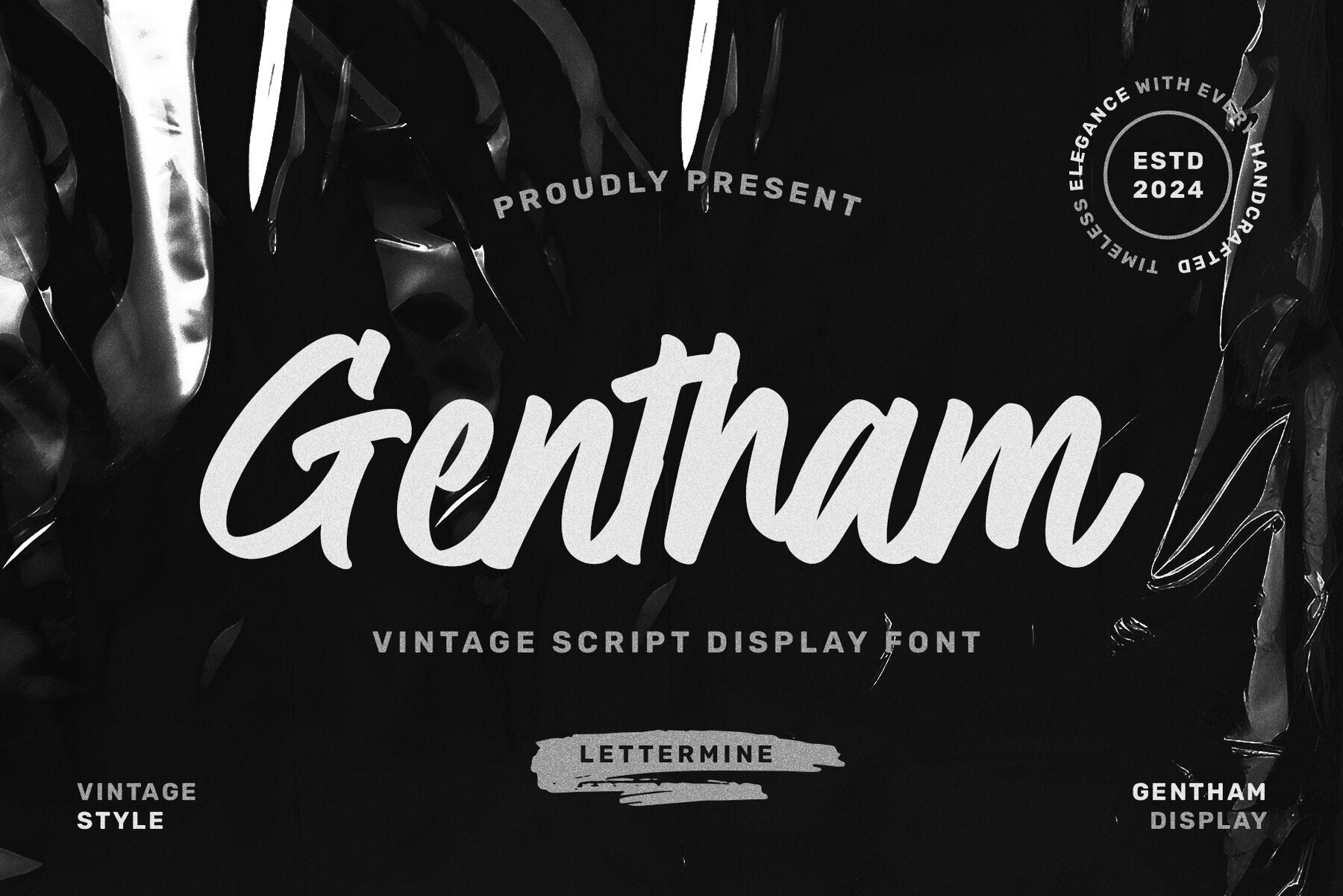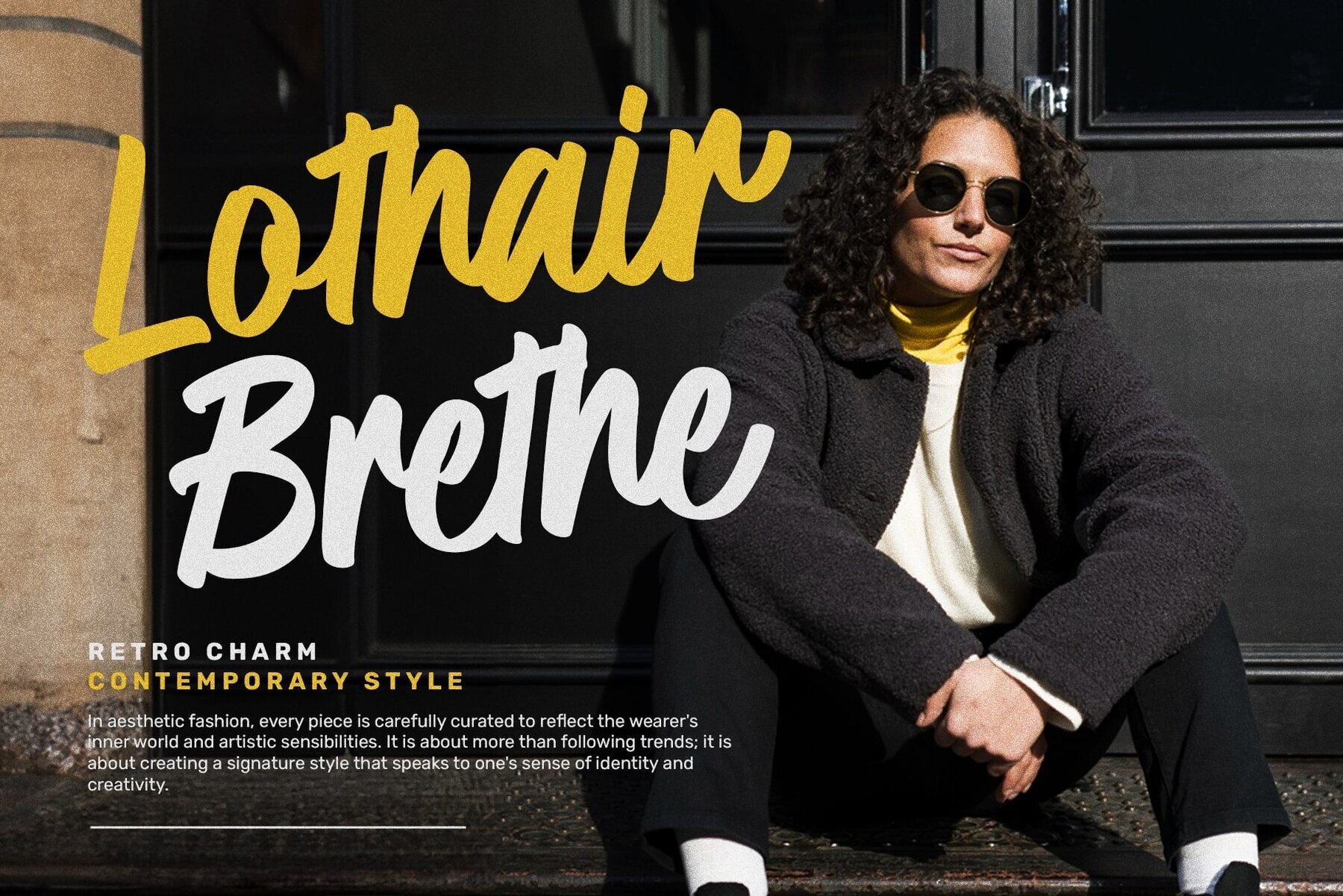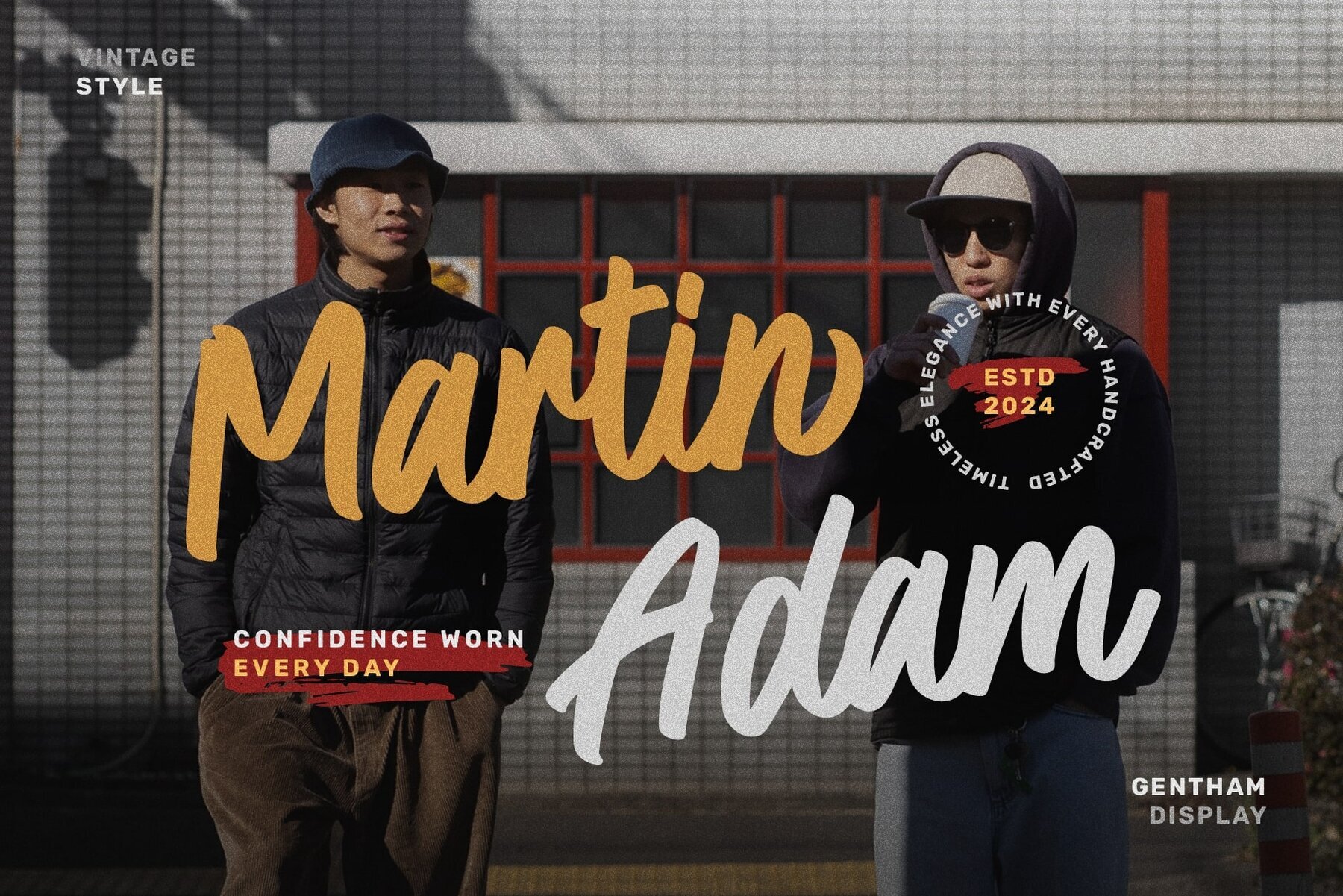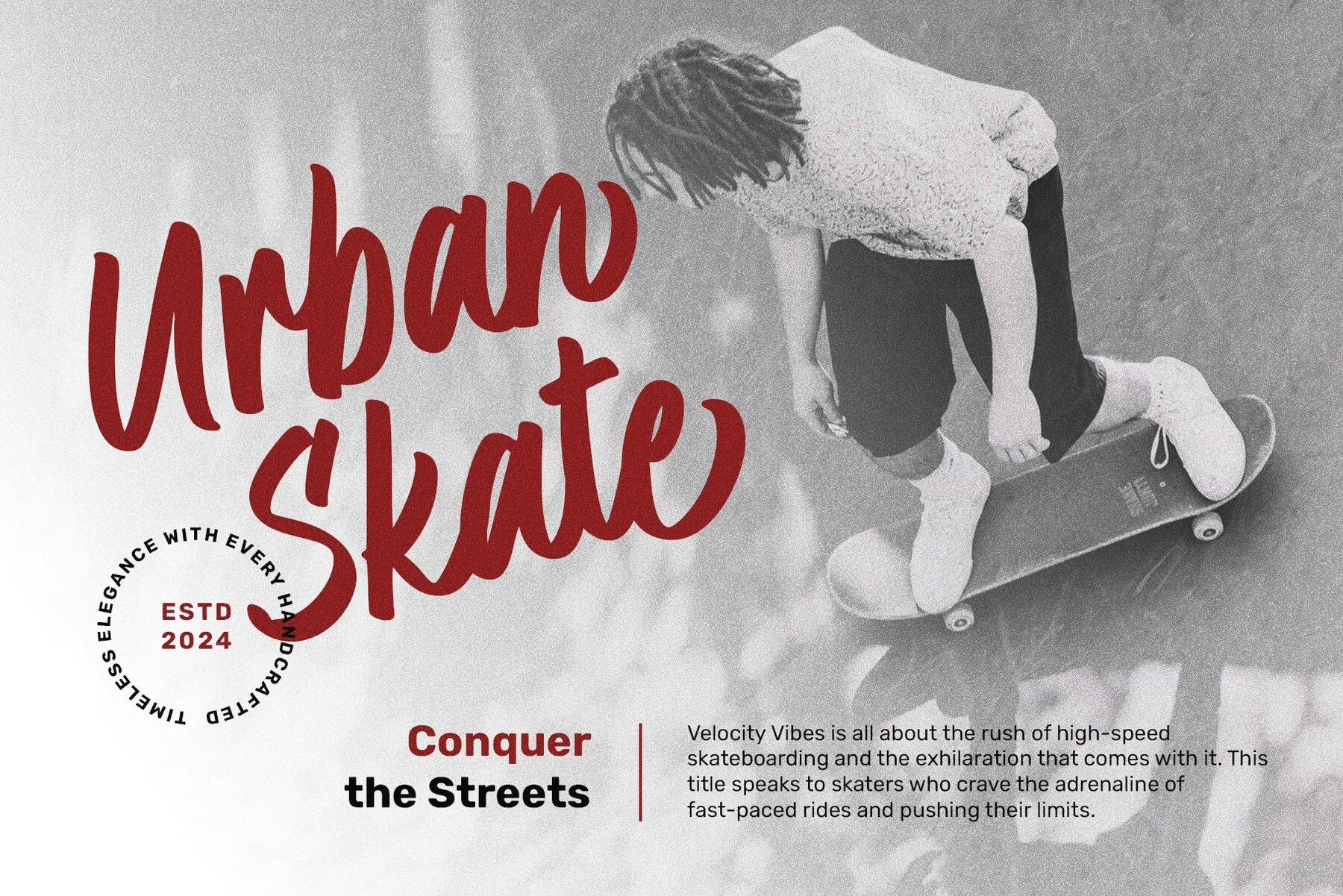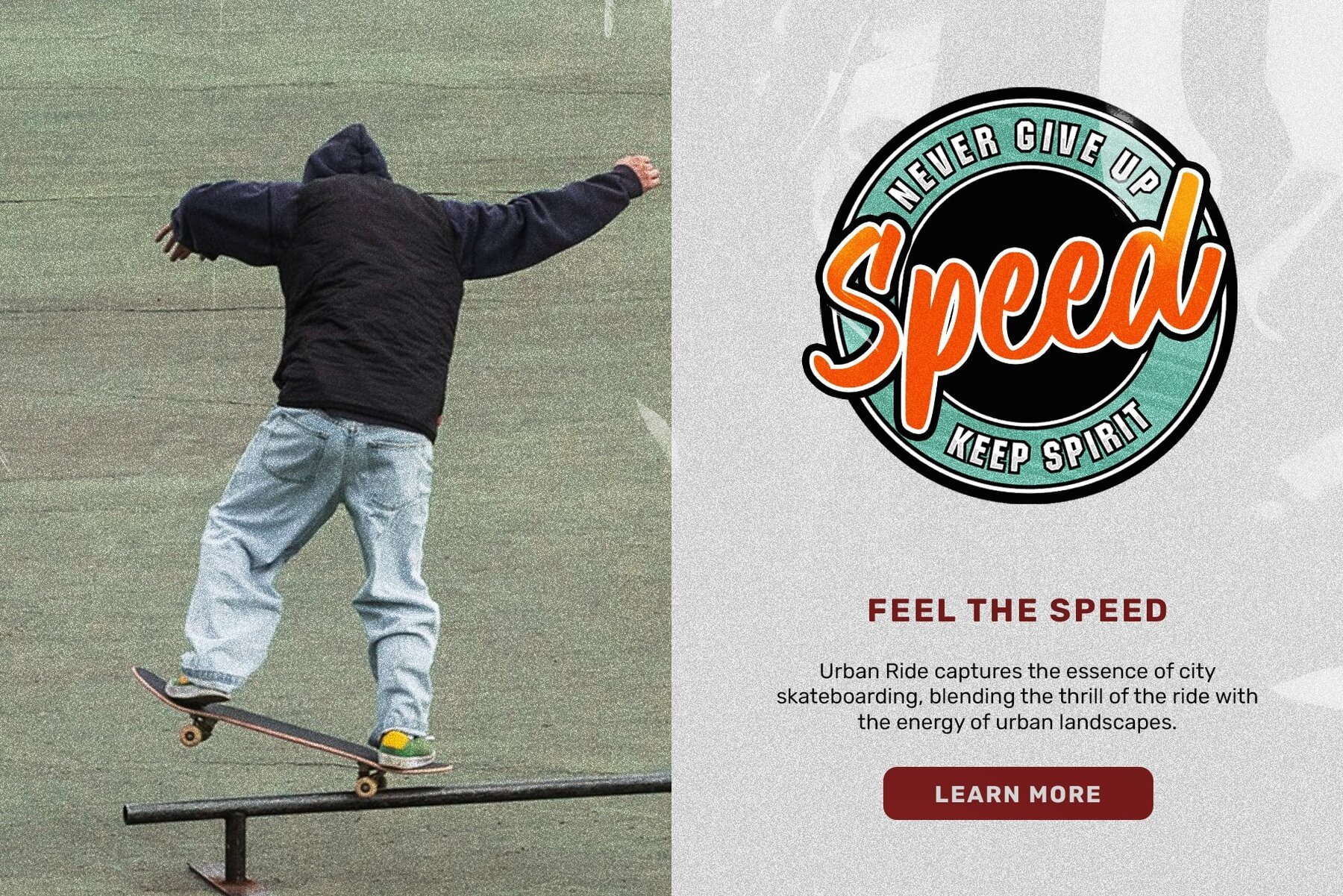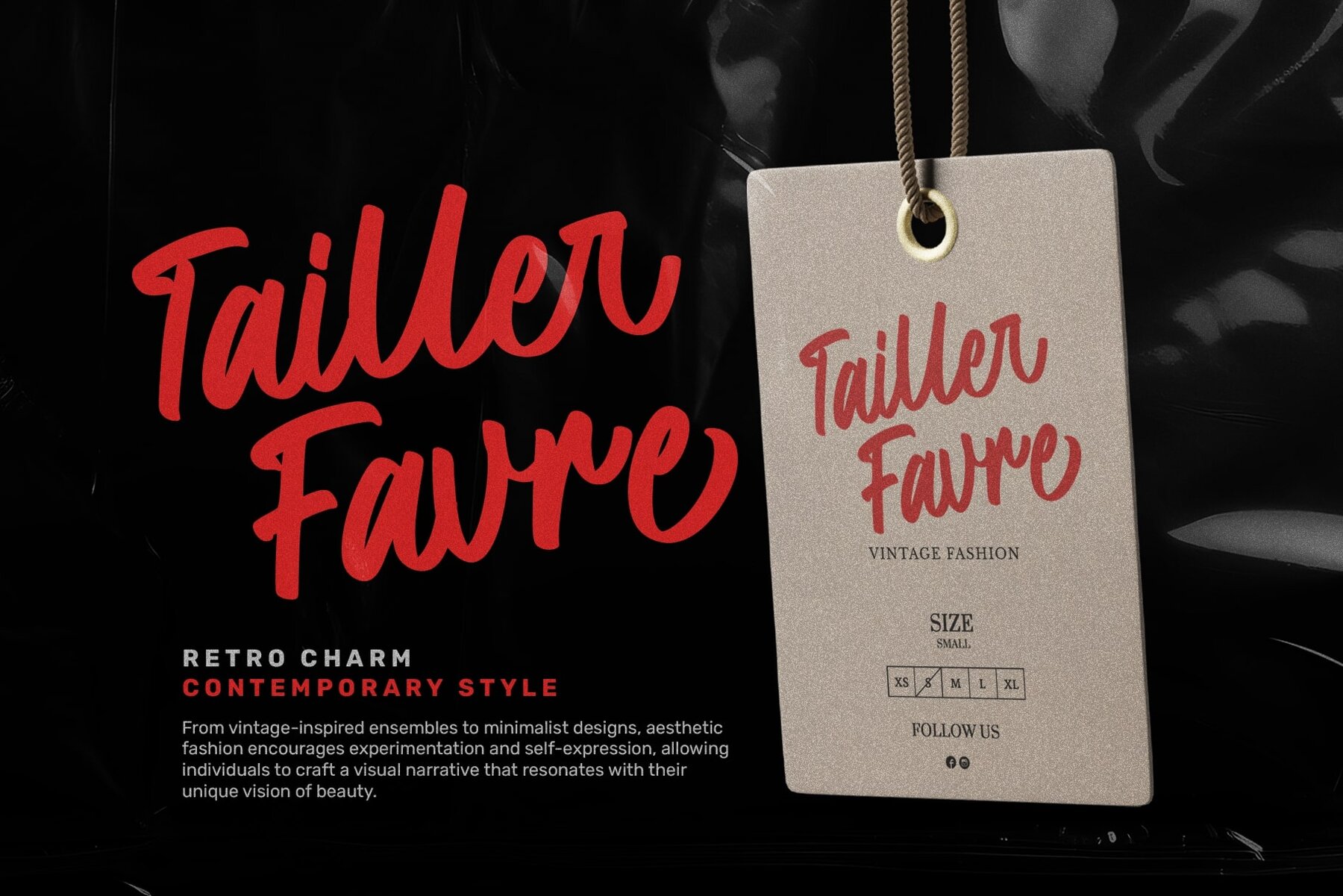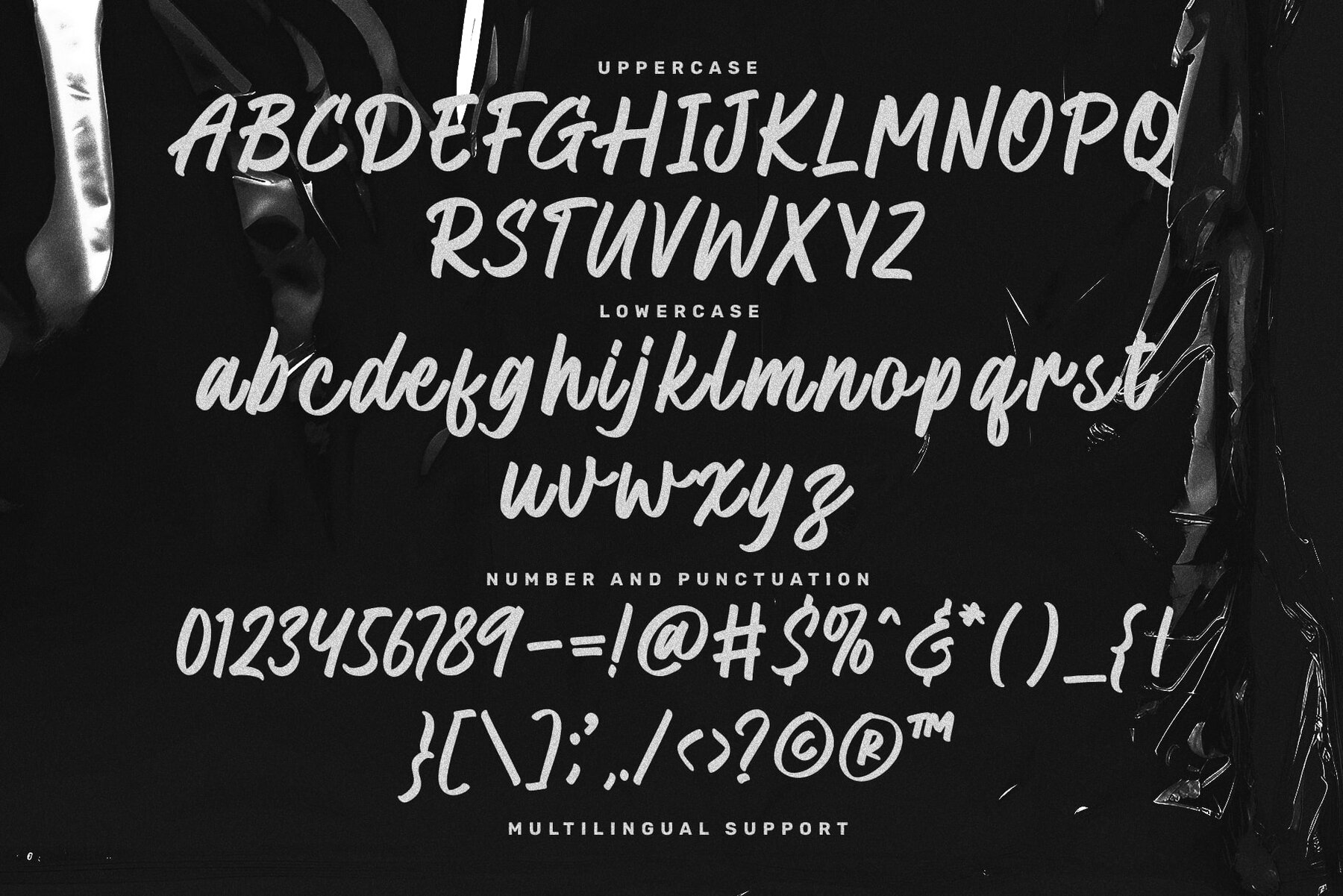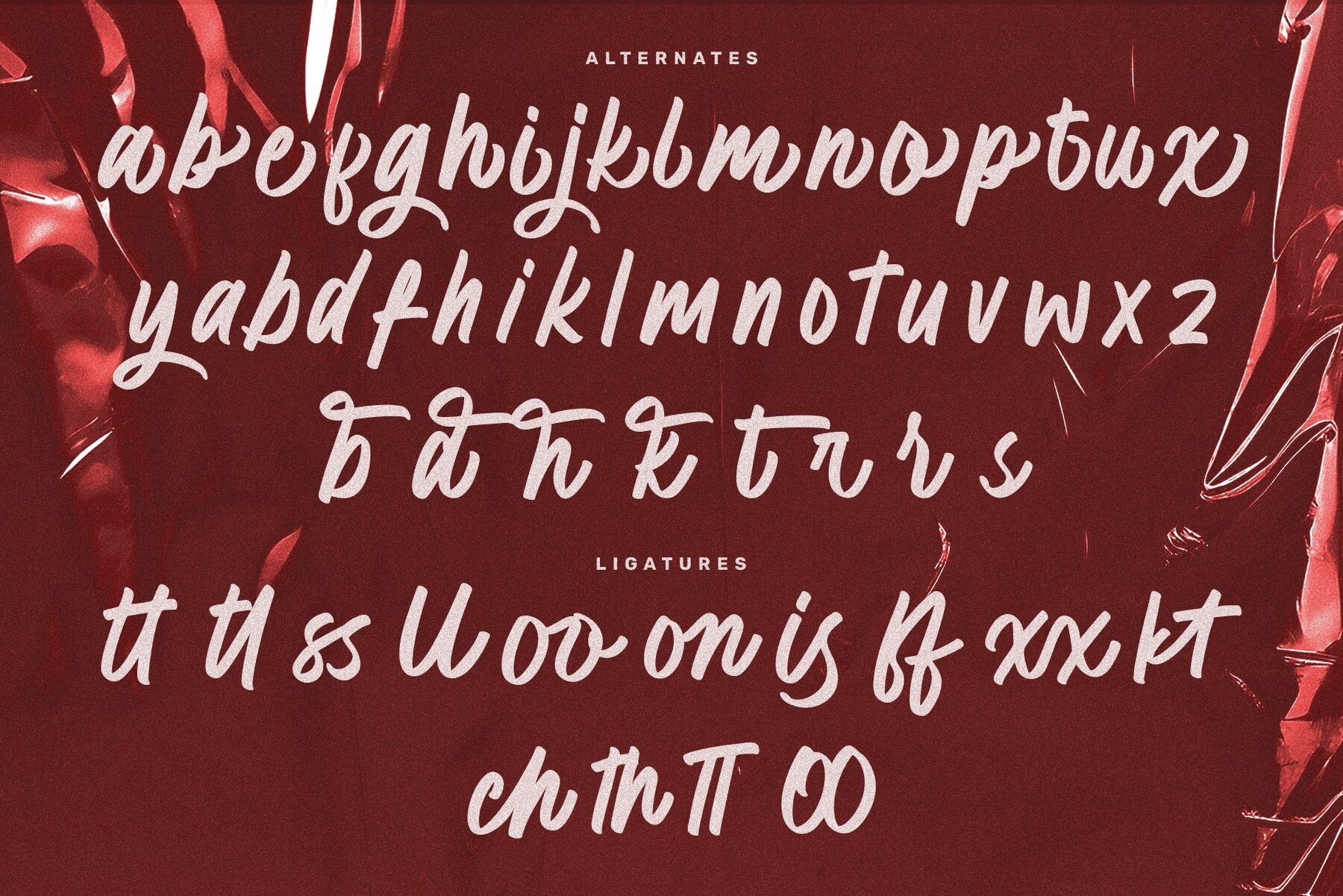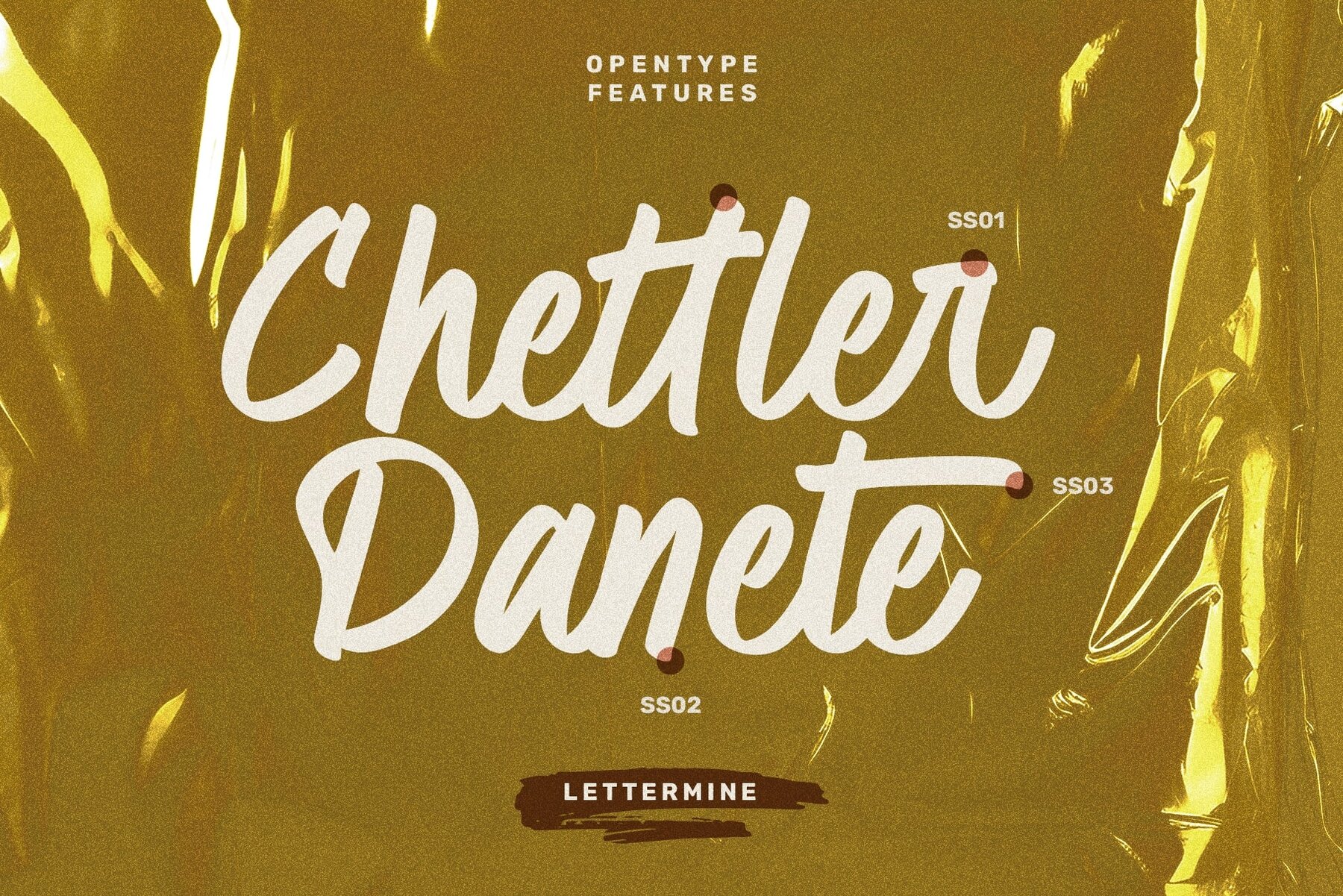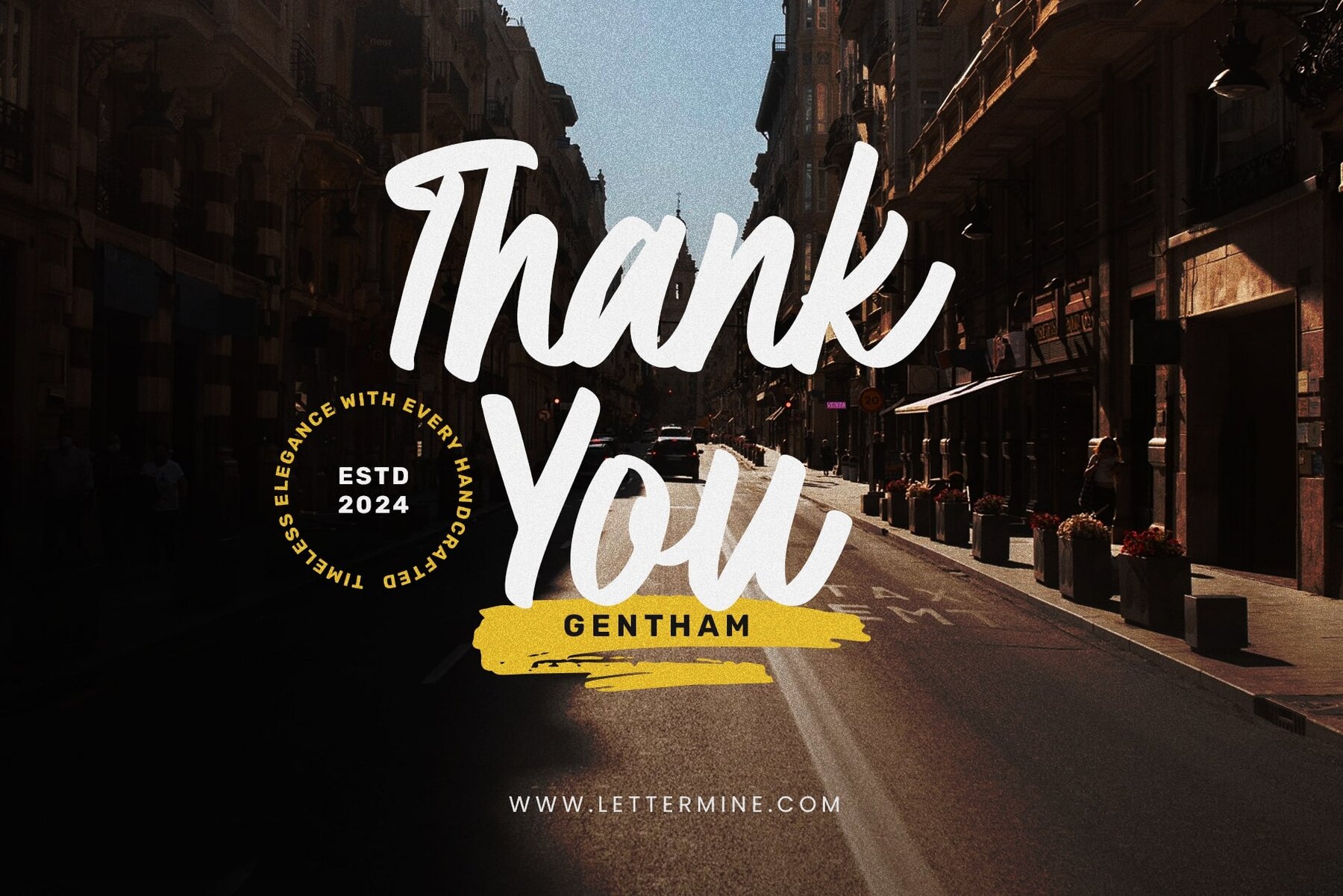
Gentham Font
Gentham Regular
Discover the elegance of GENTHAM, a beautifully crafted handwritten script font designed to bring warmth and personality to your work. Ideal for wedding invitations, greeting cards, branding projects, and more, GENTHAM offers a seamless blend of sophistication and charm. The font includes ligatures, alternates, uppercase and lowercase letters, and punctuation, ensuring versatility and creativity in your designs.
Perfect for a variety of projects, GENTHAM enhances your social media posts, quotes, and inspirational messages with a distinctive touch. Let the charm of this handwritten script font inspire your creativity and make your projects truly unique. Transform your work with the distinctive style of GENTHAM, imbuing each piece with a touch of personal flair.